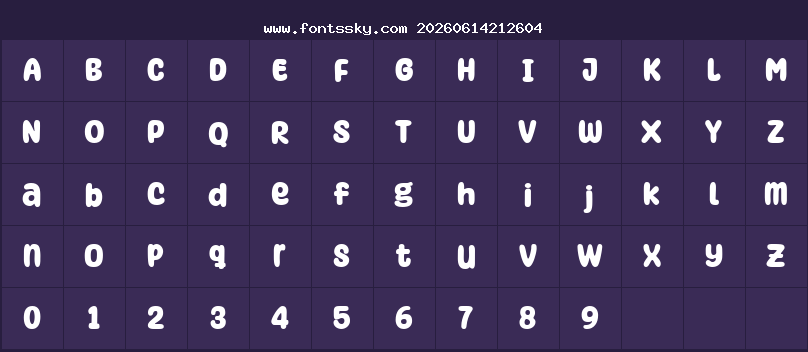
Motley Forces Preview
• Font Name: Motley Forces
• Full Font Name: Motley Forces Regular
• Designer: Ali Hamidi
About Motley Forces.ttf
Motley Forces.ttf is a modern, elegant sans-serif font designed for ultimate readability and visual harmony. Perfect for branding, headlines, web design, and print materials.